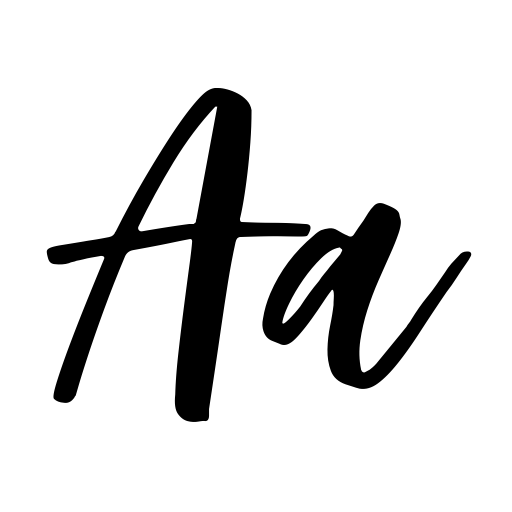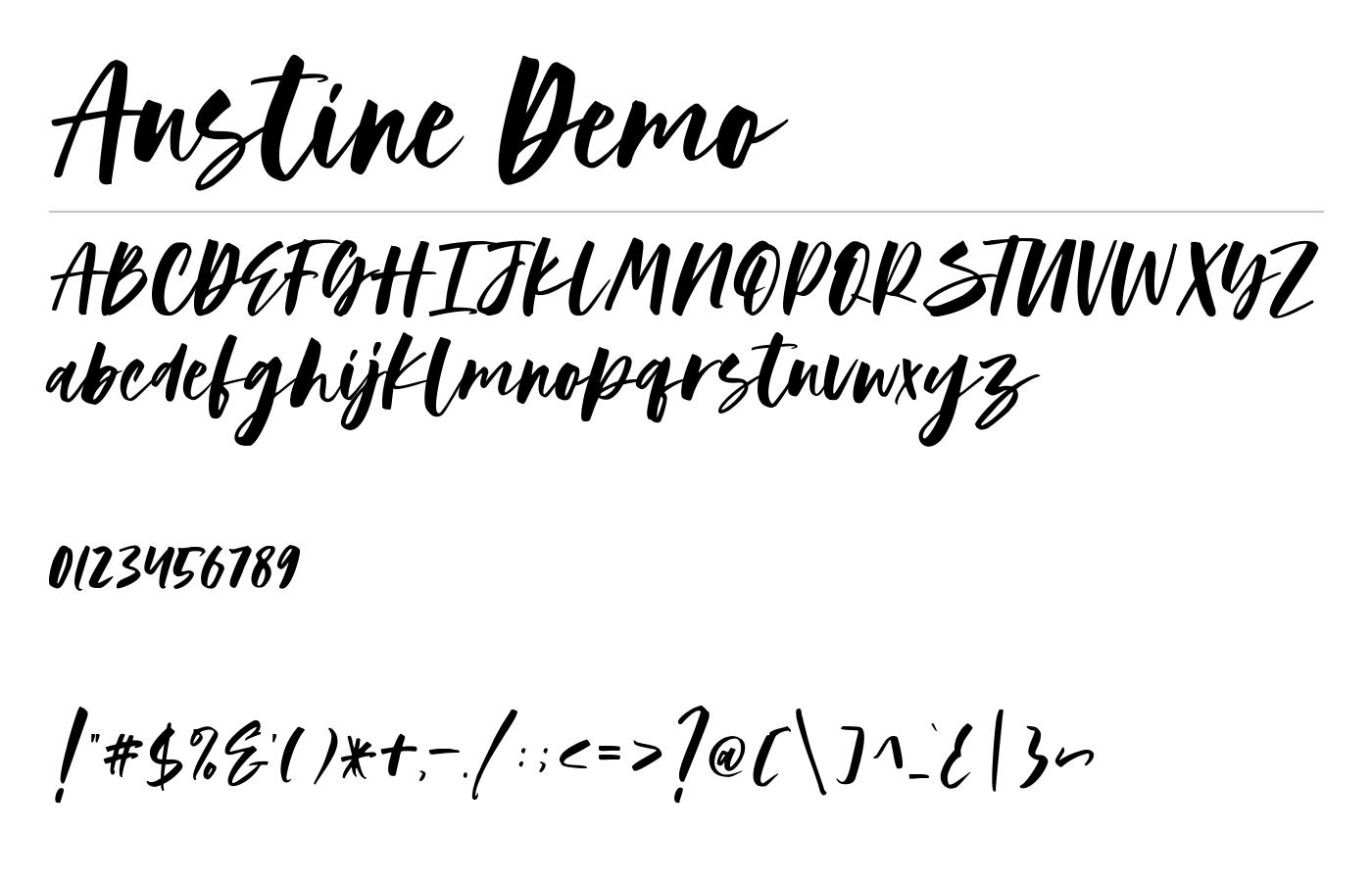
Austine Demo is a lively and expressive script font with a handwritten feel, featuring bold strokes and a dynamic flow that adds a personal touch to any design. Its irregular yet stylish letterforms make it perfect for creative projects, including branding, invitations, and social media graphics, where a casual and energetic vibe is desired. This font shines in headline use, bringing personality and warmth with its distinctive brush-like appearance.
Austine Demo Font
About Austine Demo Font